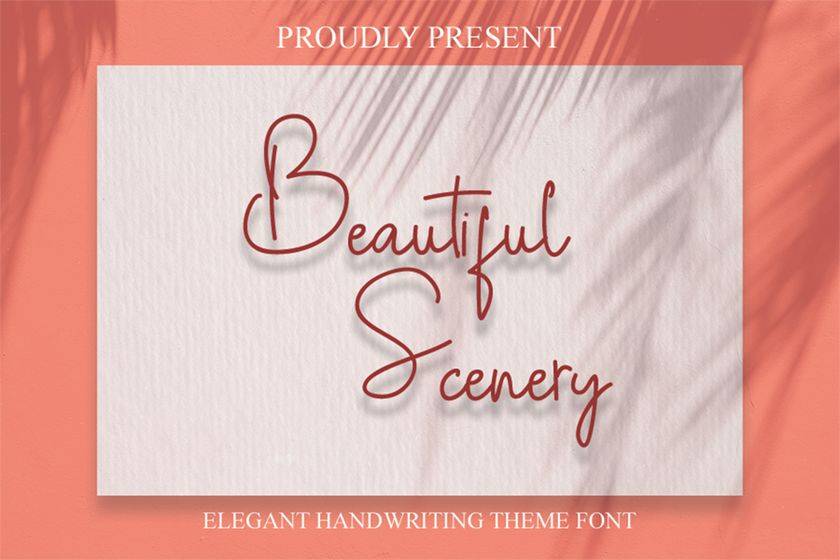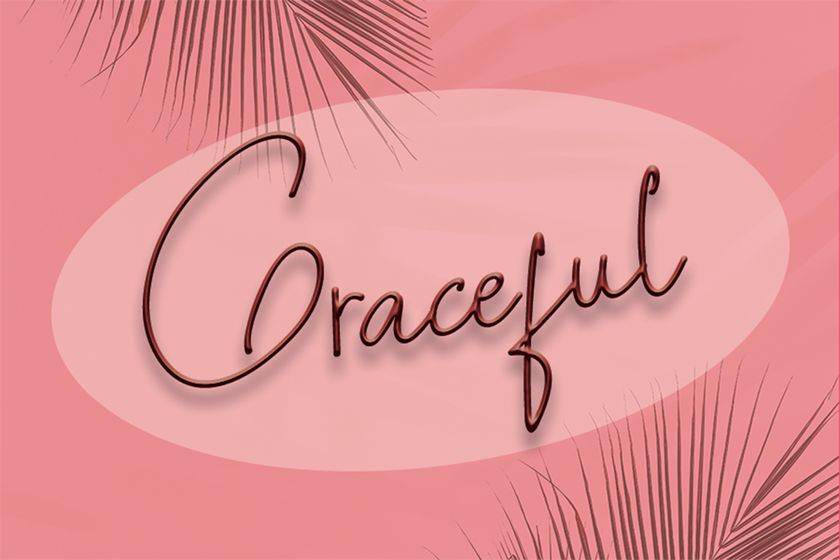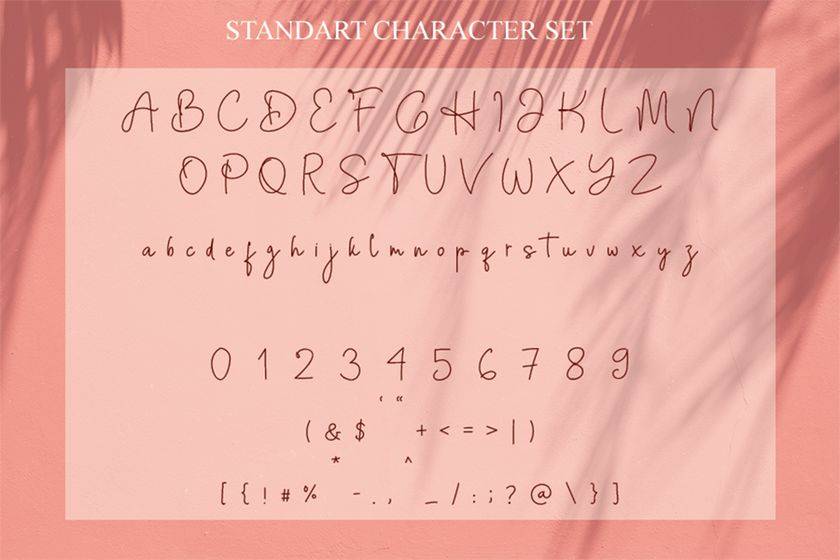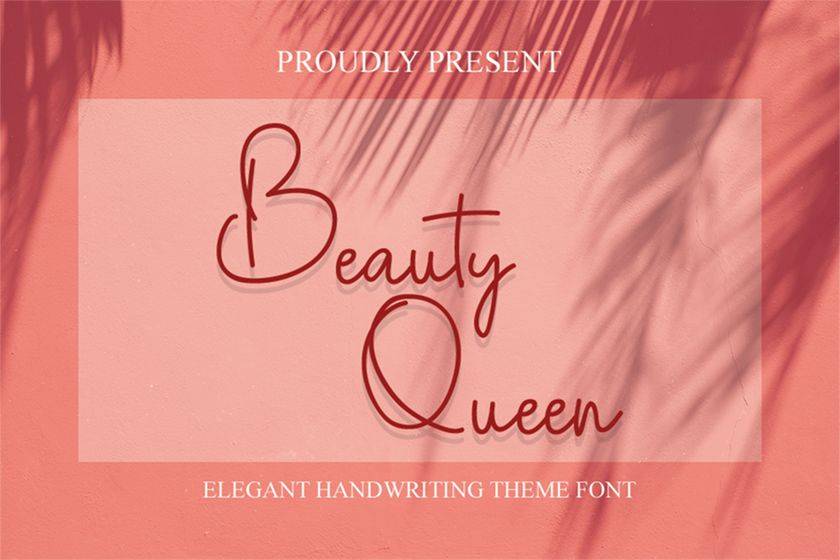
Beauty Queen is a delicate, handwritten script font with a slender, airy feel and playful loops that add charm and personality. Its thin strokes and casual, slightly quirky letterforms make it perfect for feminine, creative, and informal designs such as invitations, branding, and social media graphics. This font brings a light, whimsical touch that works beautifully in contexts where elegance meets a personal, approachable style.
Beauty Queen Font
About Beauty Queen Font
| Font family | Beauty Queen Font |
| Release date | 2021-03-19 |
| Designer | erik studio |